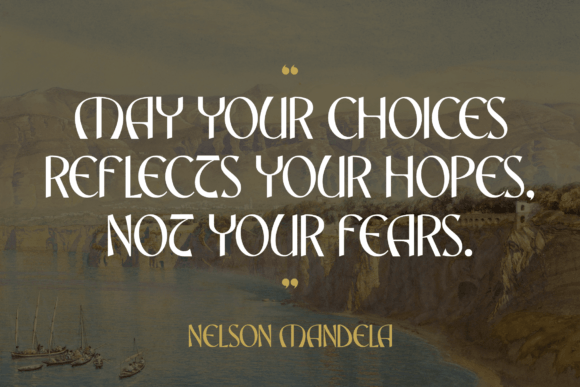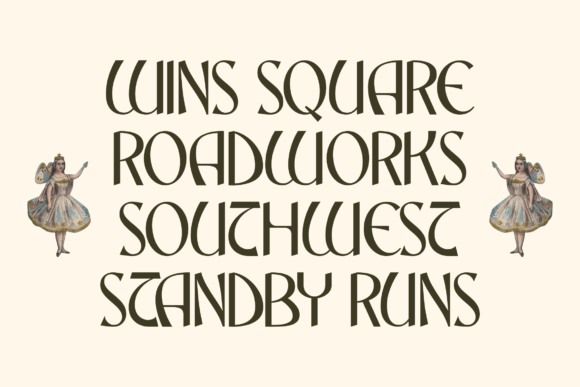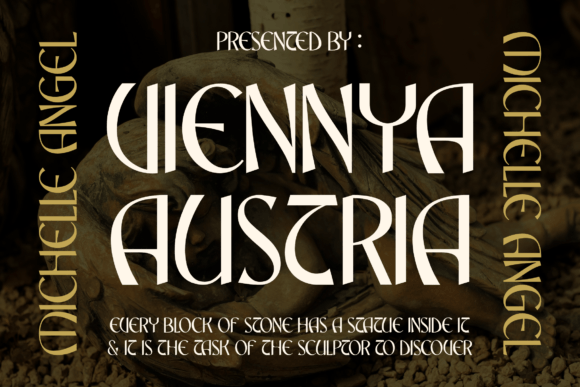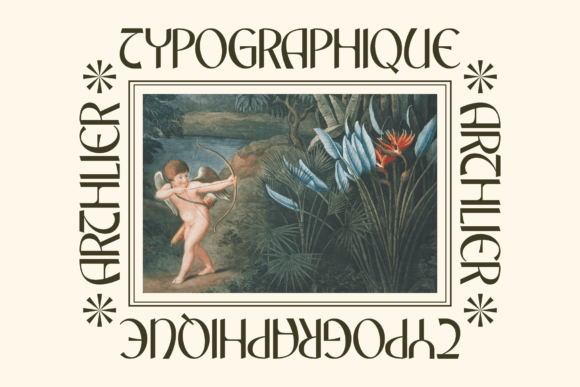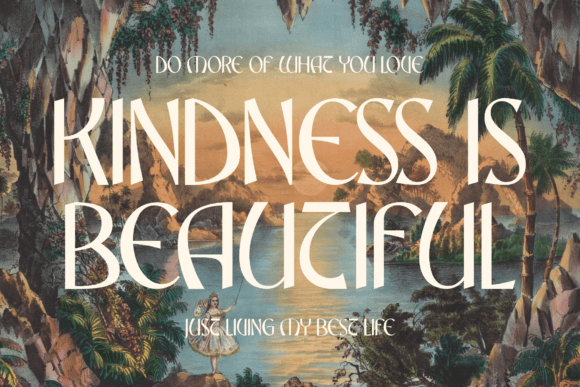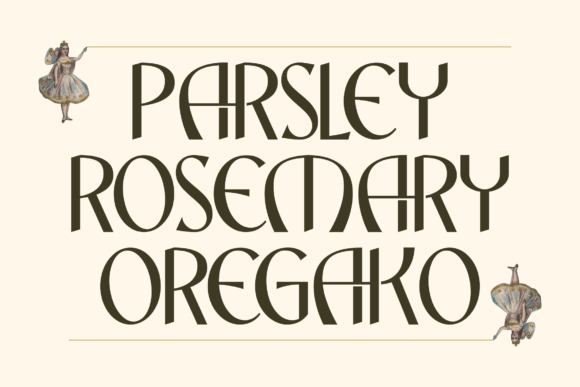
Introduction to Nooxer Font
Have you ever stumbled upon the perfect font while working on a creative project, and it instantly elevates the entire design? For designers, that ‘aha’ moment is priceless. It’s the spark that sets the tone for the rest of the project, and Nooxer Font is one of those game-changing discoveries.
Nooxer Font is a stunning serif typeface that effortlessly blends modern and classic elements. Its unique style and sleek look make it perfect for designing luxury logos, book titles, fashion brands, and magazine covers. Whether you’re working on a high-end fashion project or a sophisticated book cover, Nooxer Font is an excellent design resource that will add a touch of elegance to your work.
Key Features of Nooxer Font
- Unique, modern font style with a transparent background, perfect for graphic designers and artists.
- Features a large character set, including uppercase and lowercase letters, numbers, and special characters.
Honest Review: Nooxer Font
I recently stumbled upon the Nooxer Font, and I must say it’s been a game-changer for my creative projects. As a designer, I’m always on the lookout for high-quality design resources that can elevate my work.
The Nooxer Font is a stunning addition to my design toolkit. Its unique blend of modern and vintage styles makes it perfect for a wide range of creative projects. Plus, the fact that it’s available for free download is a huge bonus.
- ✨ High-quality design with a unique blend of modern and vintage styles
- ✨ Perfect for a wide range of creative projects, from logos to typography
- ⚠️ Limited character set, which may not be suitable for extensive text-based projects
- ⚠️ Transparent background can be a bit tricky to work with, especially for beginners
Overall, I’m thoroughly impressed with the Nooxer Font. While it may have some limitations, its unique style and high-quality design make it a valuable addition to any designer’s toolkit. I highly recommend giving it a try, especially if you’re working on a creative project that requires a unique and eye-catching font.
Tips for Getting the Most Out of Nooxer Font
Experiment with different font sizes, colors, and styles to create visually appealing designs. Use the transparent background to create a cohesive look across your project.
The Nooxer Font is ideal for creating logos, branding materials, and marketing materials. Its high-quality design and transparent background make it a versatile design resource for any creative project.